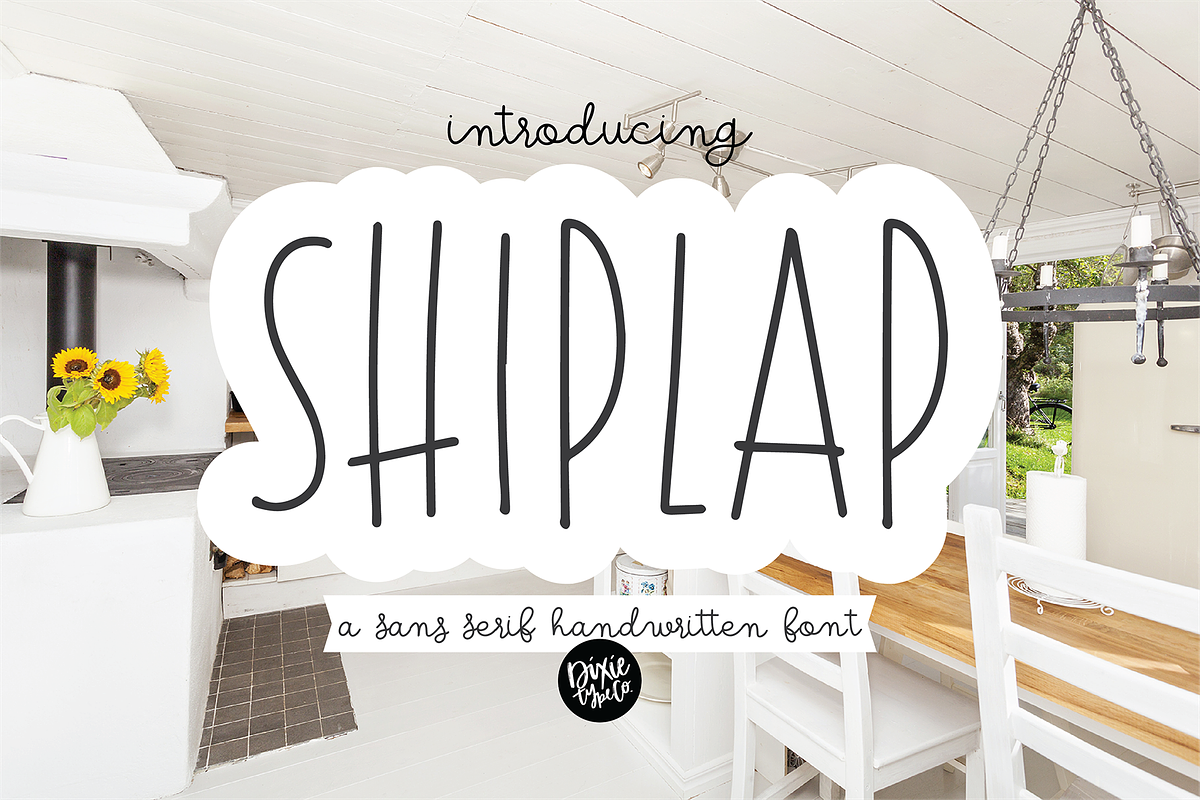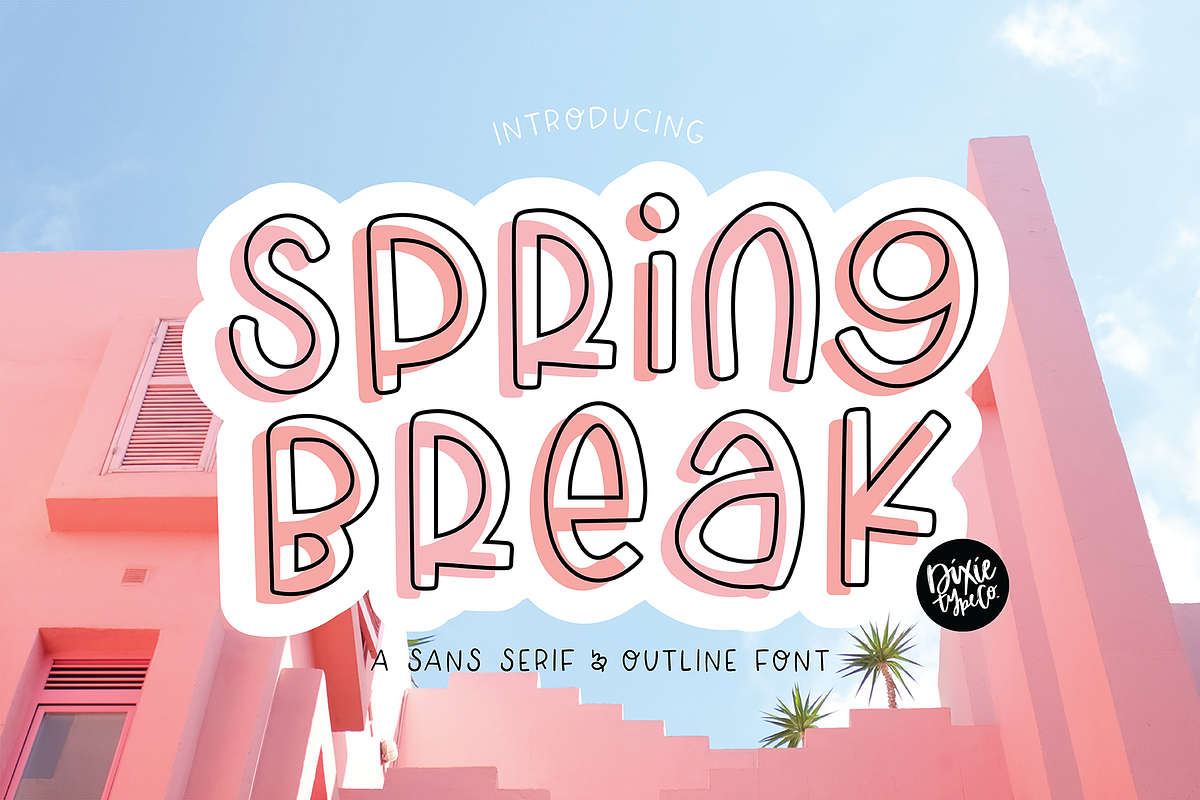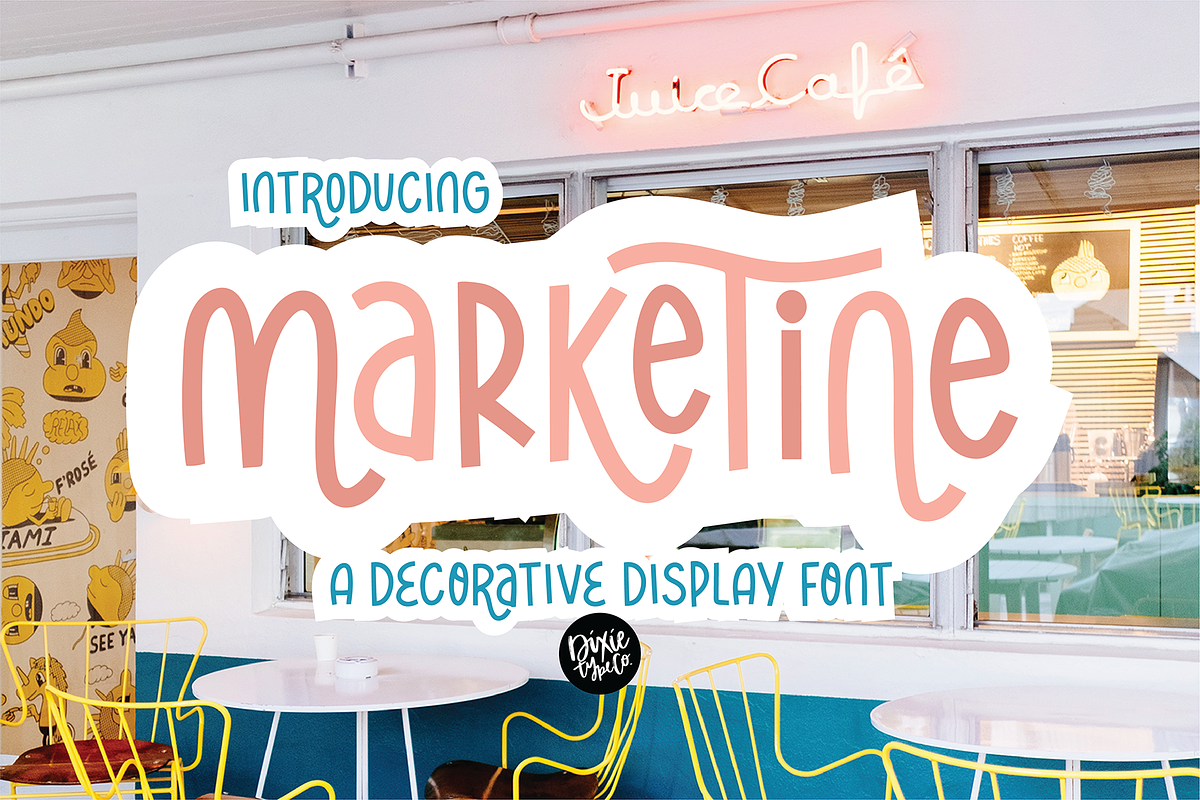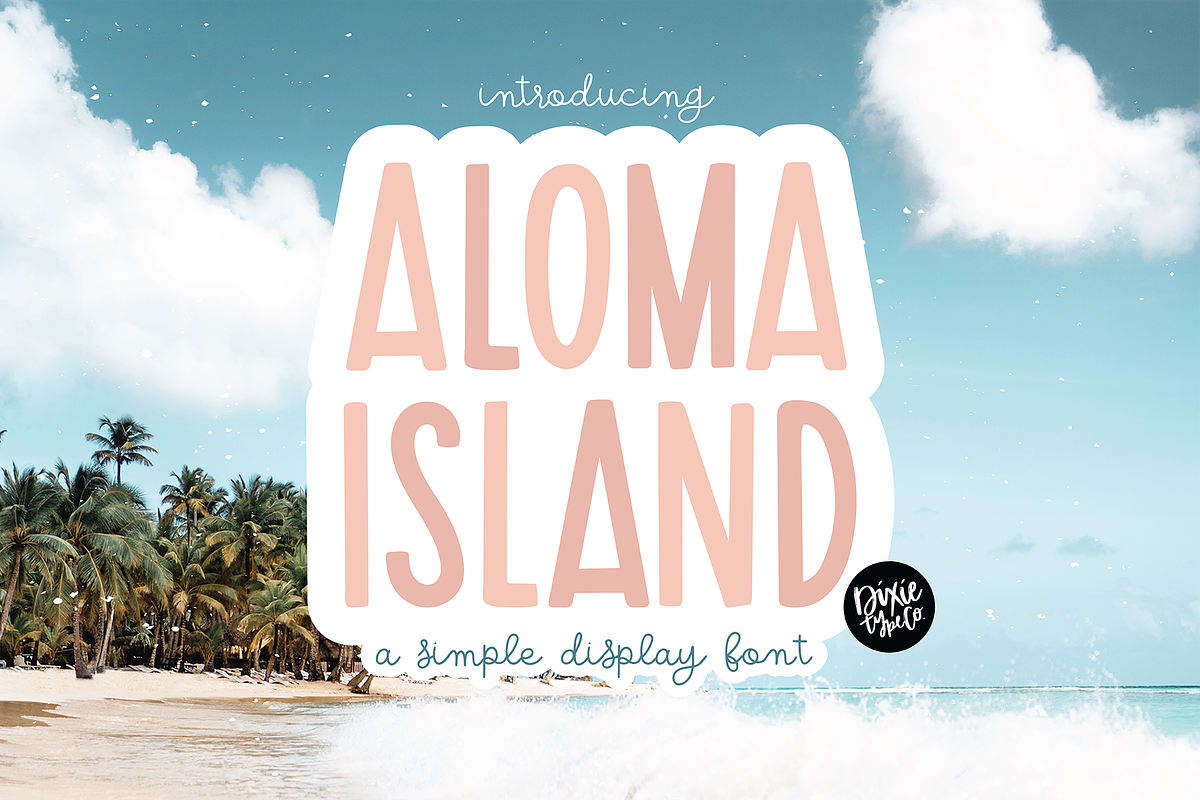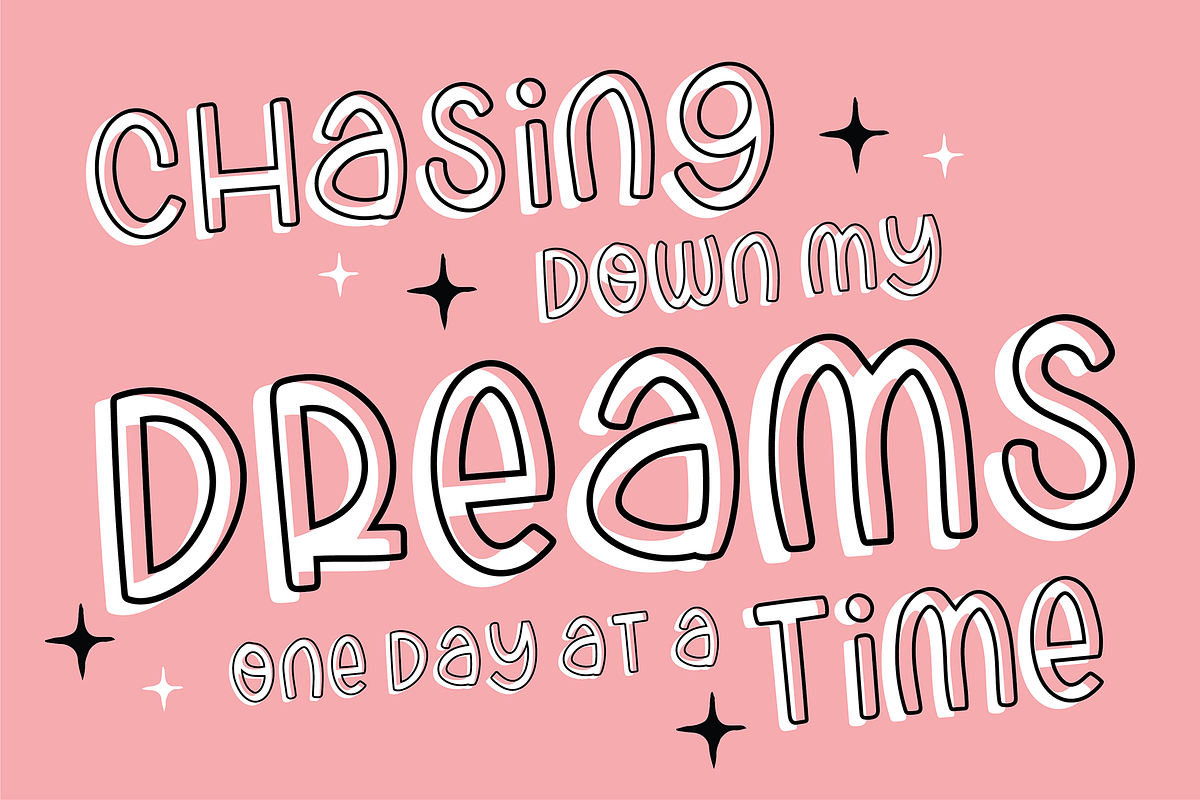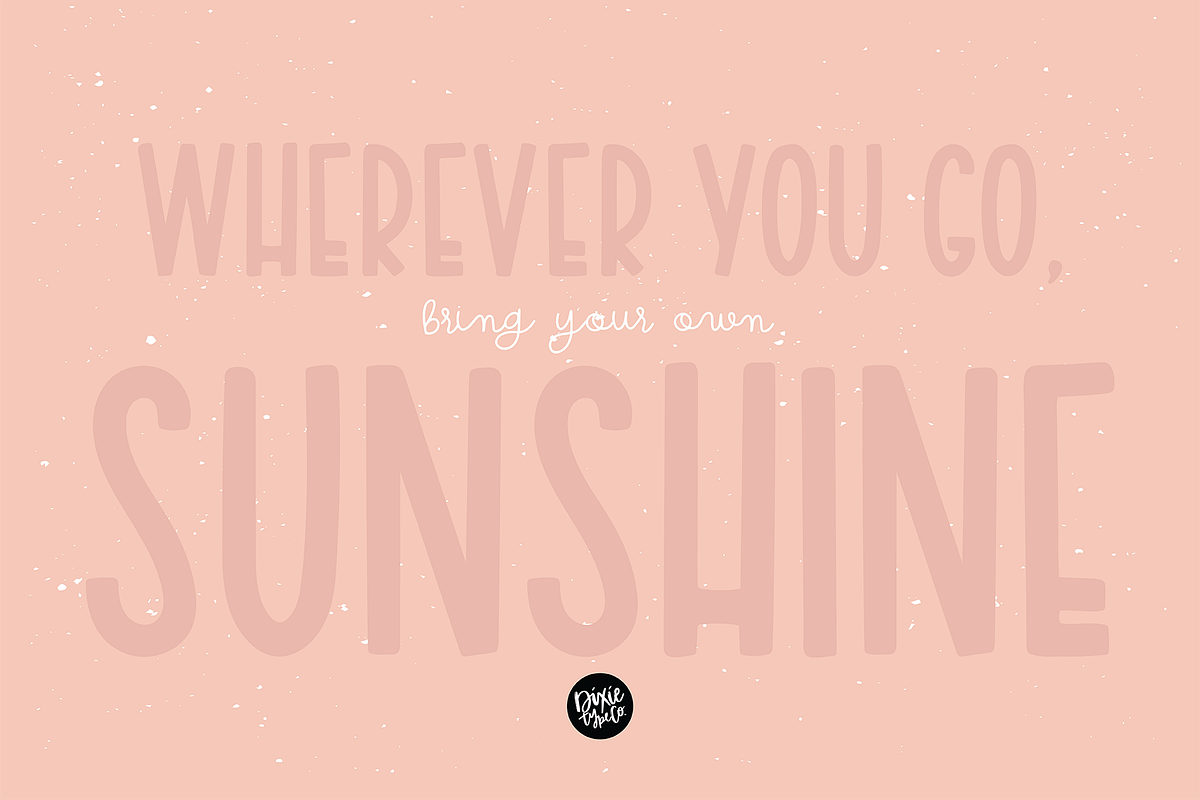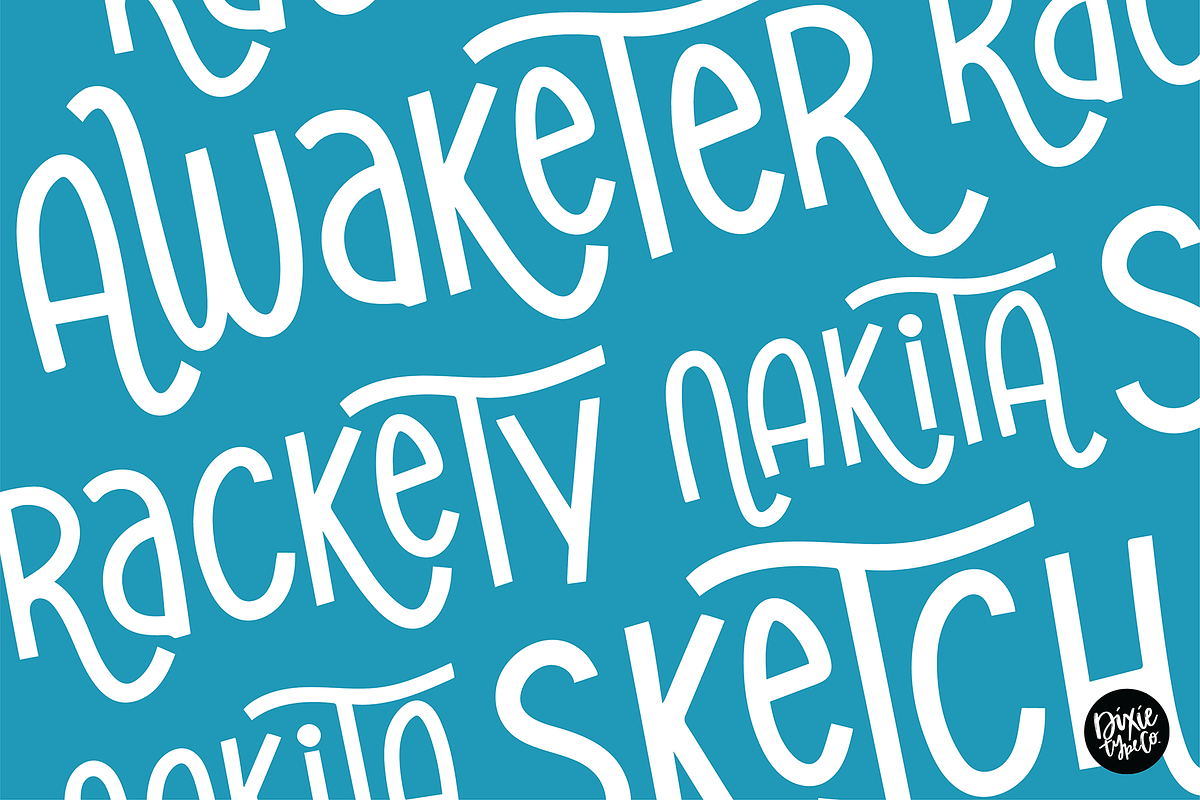
Sans Serif Hand Lettered Font Bundle
These fonts were all hand lettered with a brush and ink, or iPad Pro.
The 8 fonts included are:
Girly Talk Marketine Shiplap Aloma Island Spring Break Little Louie Karena Cabana Baby